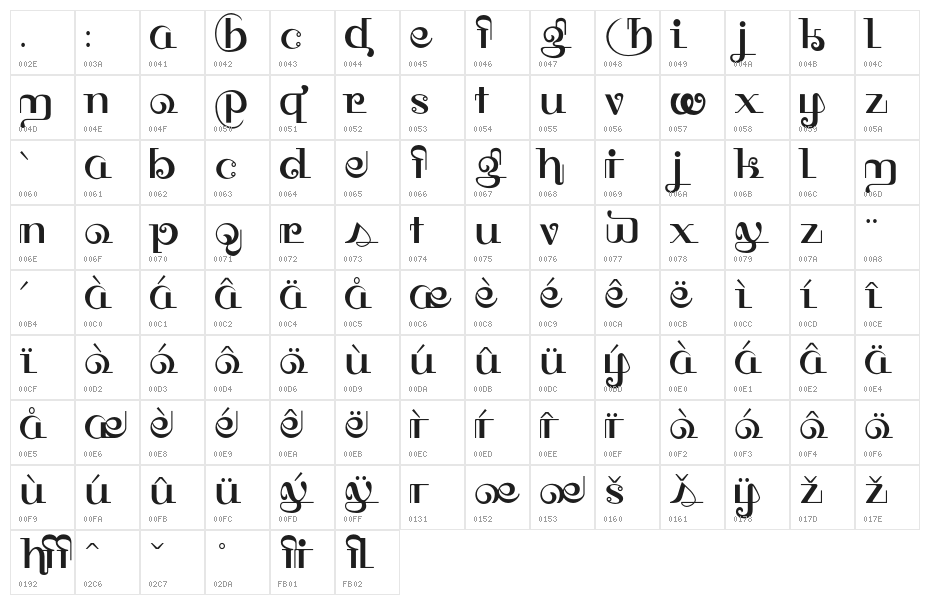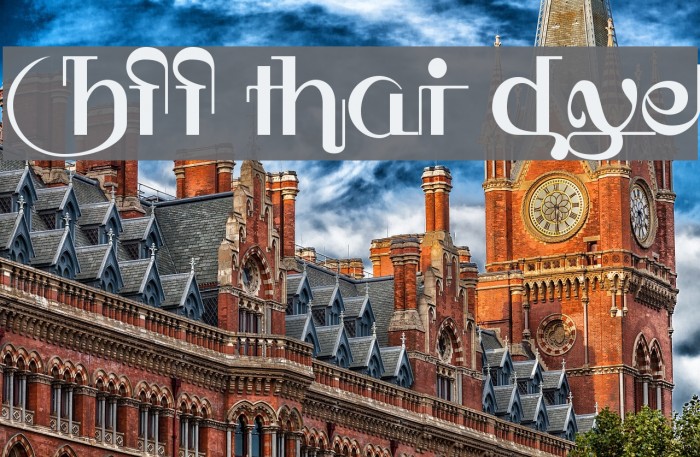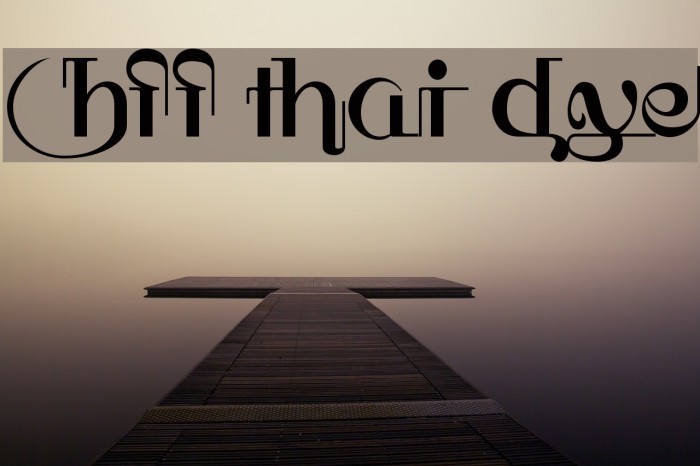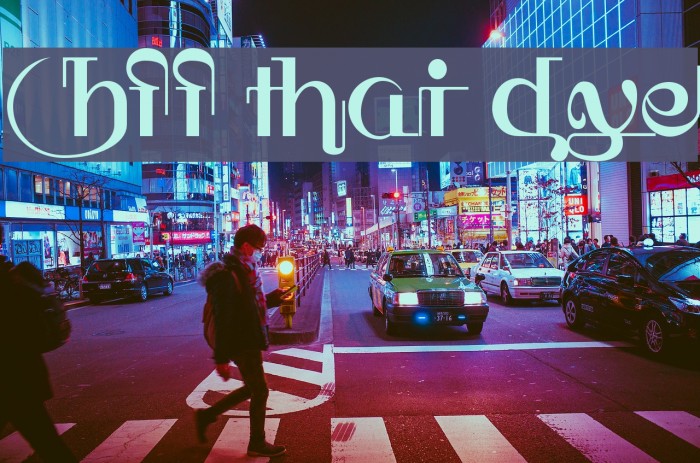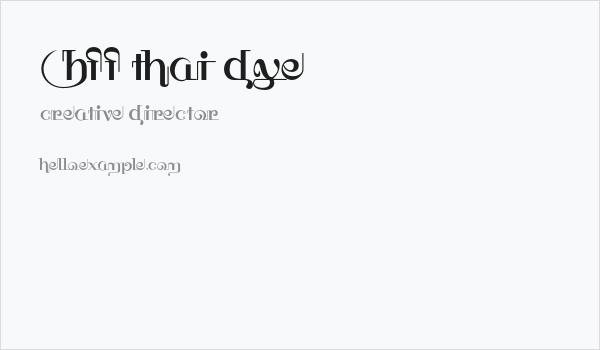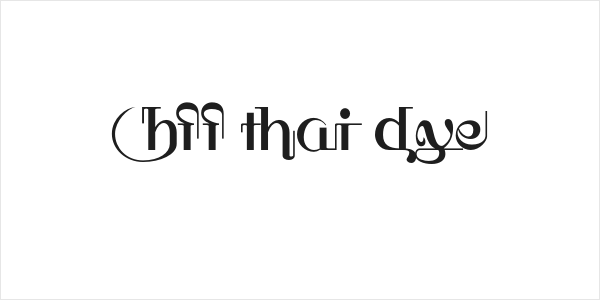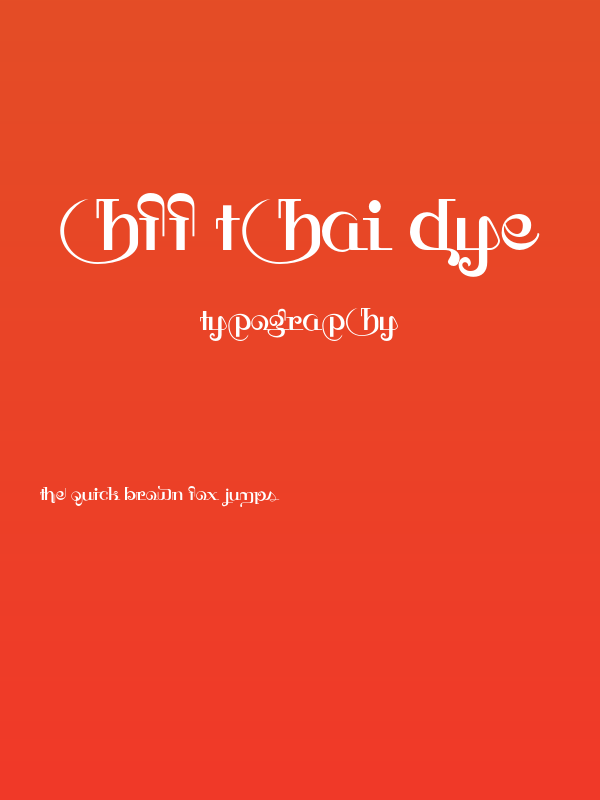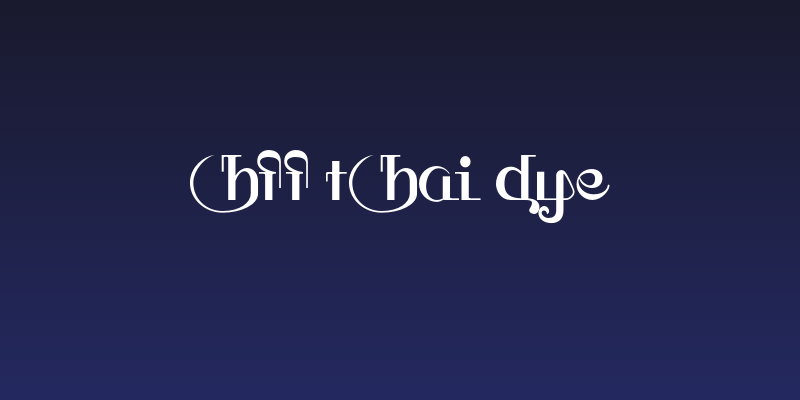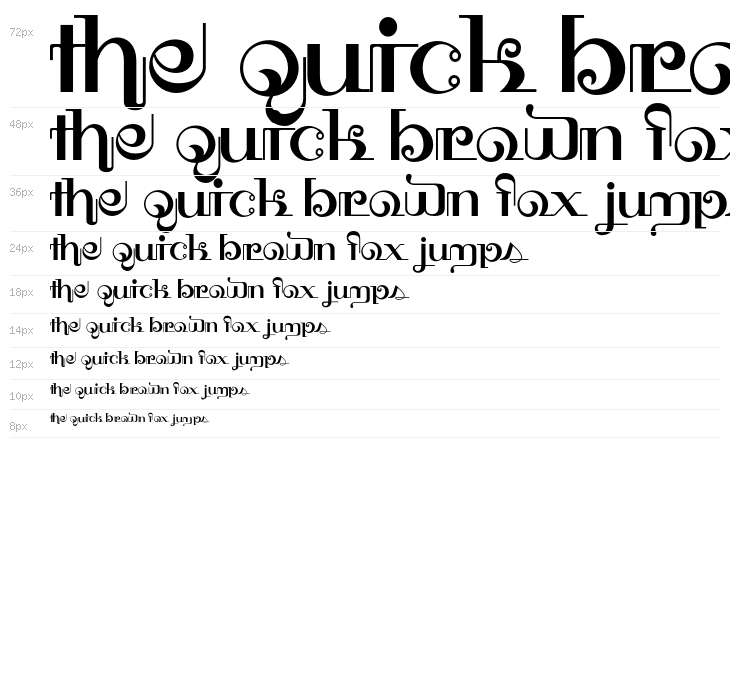
HFF Thai Dye Font
HFF Thai Dye Description
This font exhibits a unique and artistic style, characterized by its decorative and intricate design. The letters feature elegant swirls and loops, giving it a whimsical and playful appearance. The uppercase and lowercase letters maintain a consistent style, with some characters incorporating additional flourishes that enhance their visual appeal. The font's overall look is both modern and vintage, making it versatile for various creative projects. Its distinctiveness lies in the combination of bold strokes and delicate curves, creating a harmonious balance that is visually striking.
| Use Case | Logos, Headlines, Artistic Designs |
| Proposed Projects | Ideal for creative projects such as invitations, posters, branding, and artistic designs. |